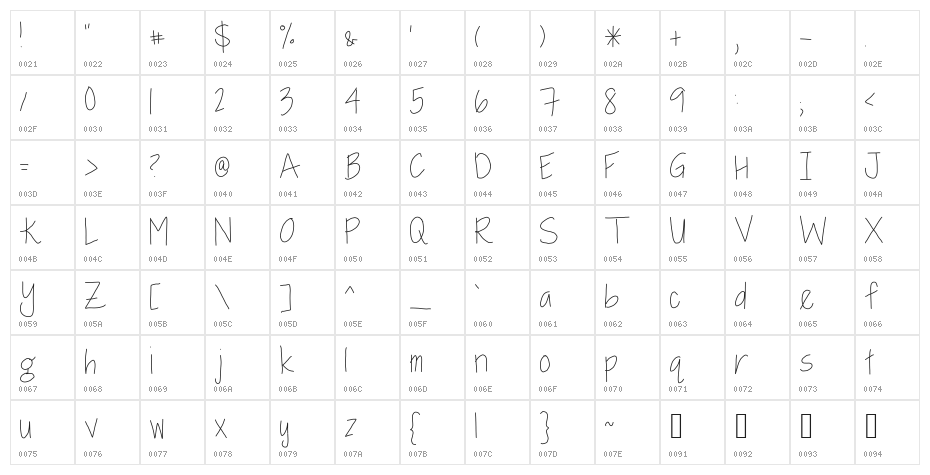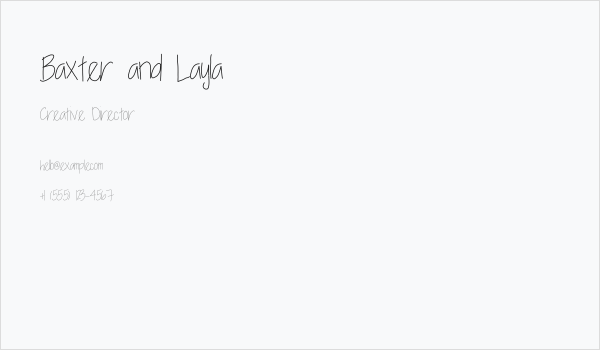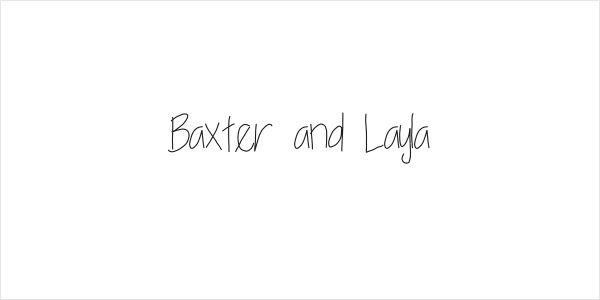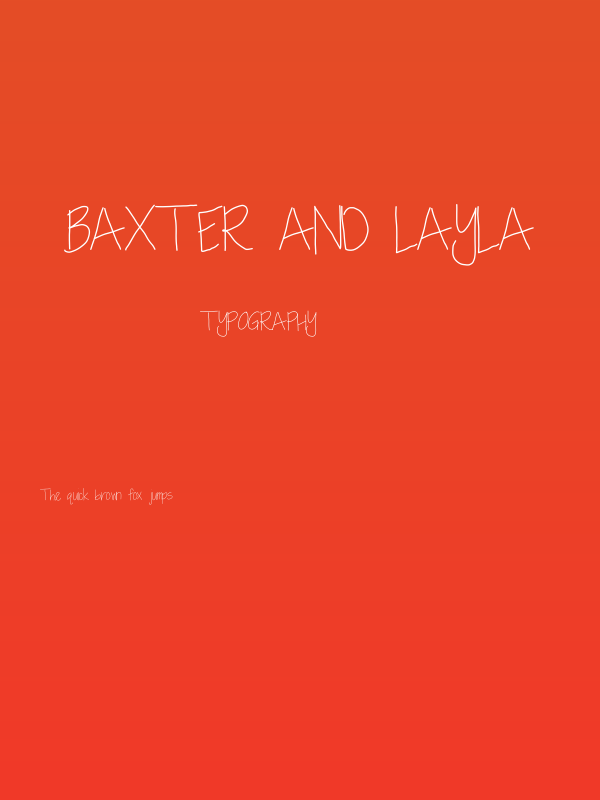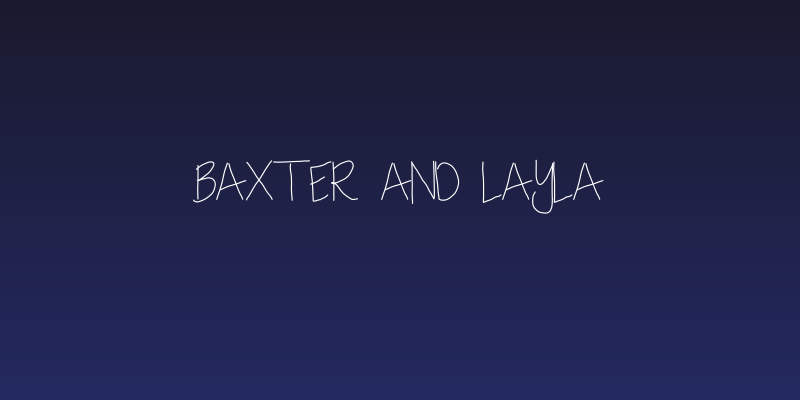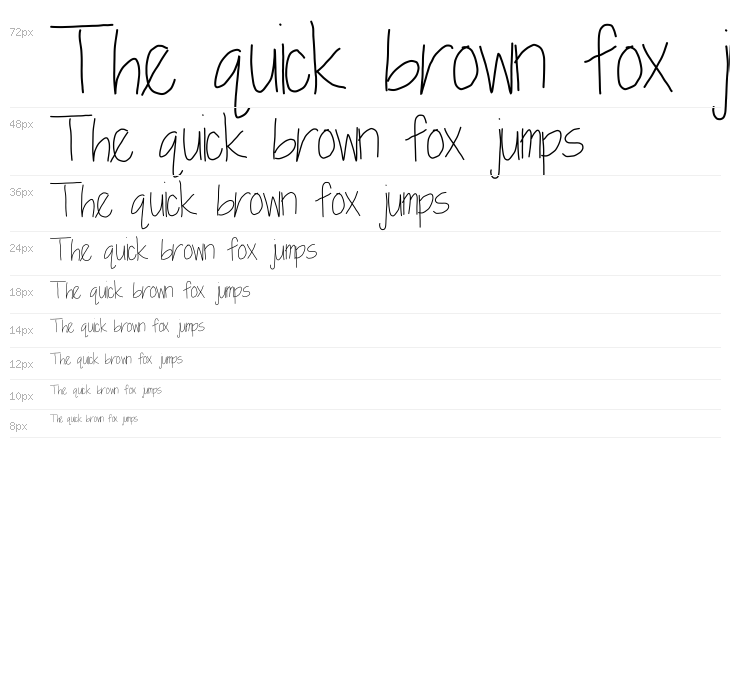
Baxter and Layla Font
Baxter and Layla Description
This font features a casual, handwritten style with a playful and informal appearance. The letters are slightly irregular, giving it a personal and approachable feel. The strokes are consistent in thickness, maintaining a uniform look across all characters. The uppercase and lowercase letters are well-balanced, with a slight slant that adds to the handwritten effect. Numbers and special characters are included, matching the overall style. This font is ideal for projects that require a friendly and relaxed tone.
| Use Case | Headlines, Informal text, Personal projects |
| Proposed Projects | Ideal for greeting cards, personal notes, casual invitations, and social media graphics. |